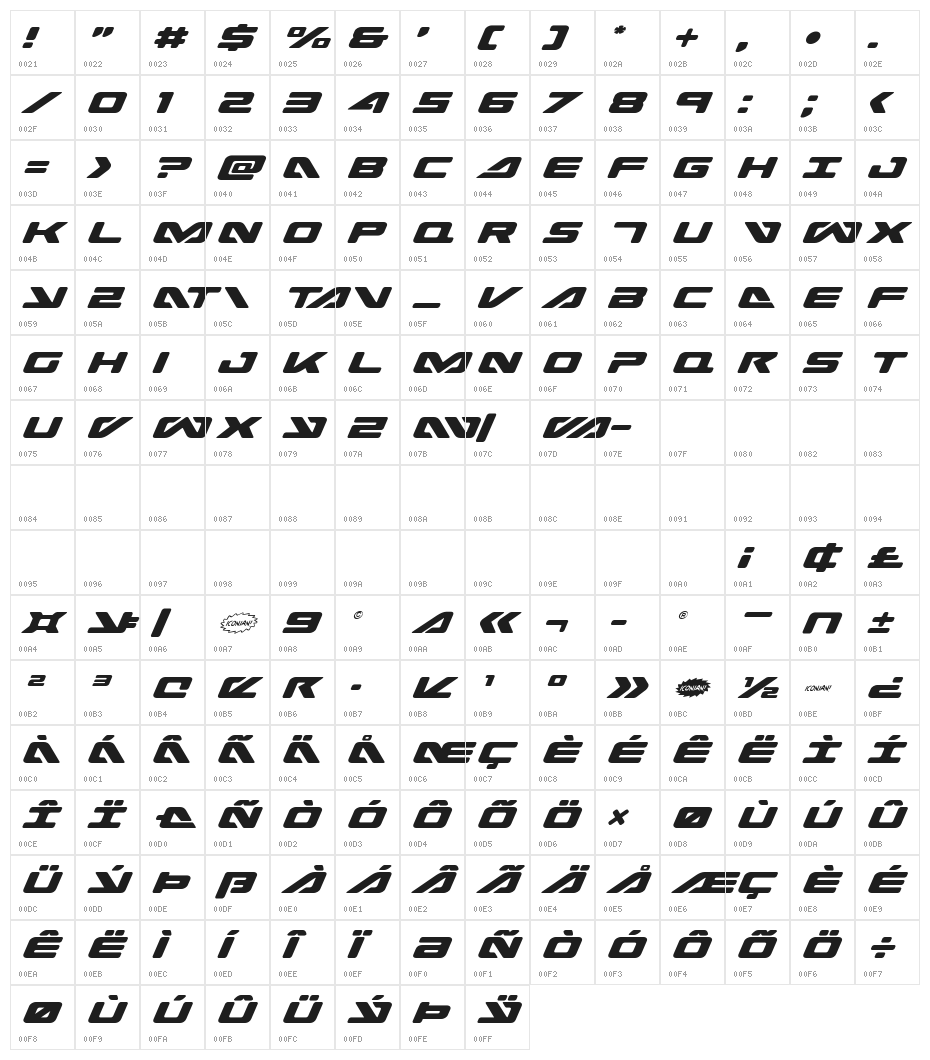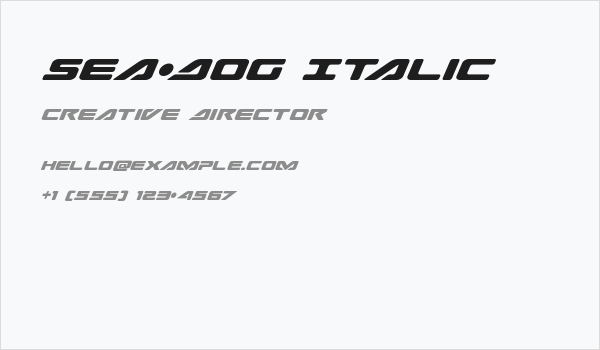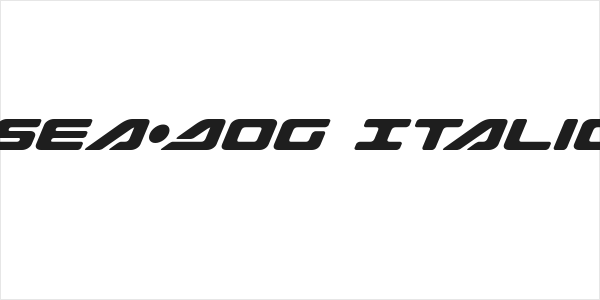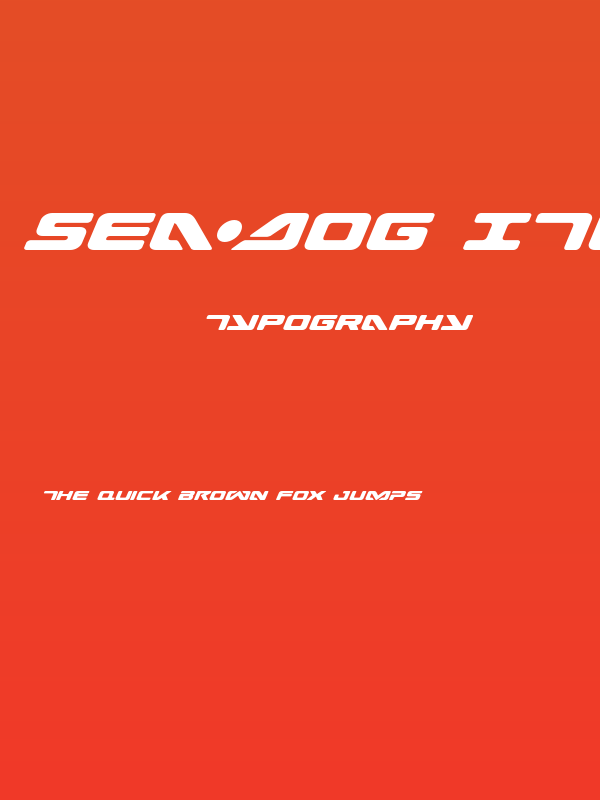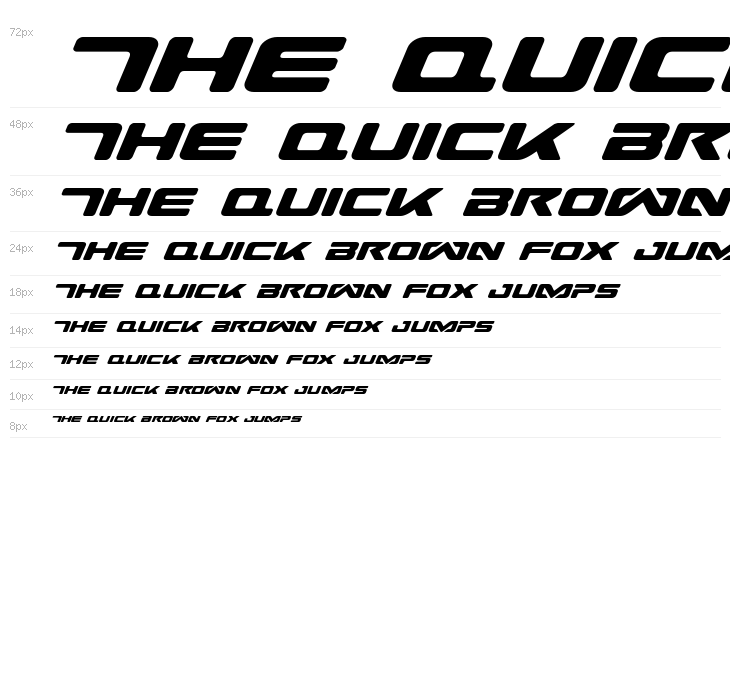
Sea-Dog Italic Font
Sea-Dog Italic Description
This font features a bold, italicized design with a futuristic and dynamic appearance. The characters are angular and sleek, with a forward-leaning stance that conveys motion and speed. The uppercase and lowercase letters maintain a consistent style, with sharp edges and a geometric structure. Numbers and special characters are designed to match the overall aesthetic, making the font suitable for modern and tech-oriented projects. The bold weight and italic slant add to its distinctive look, making it stand out in any design.
| Proposed Projects | Ideal for tech branding, sports team logos, video game titles, and sci-fi themed designs. |